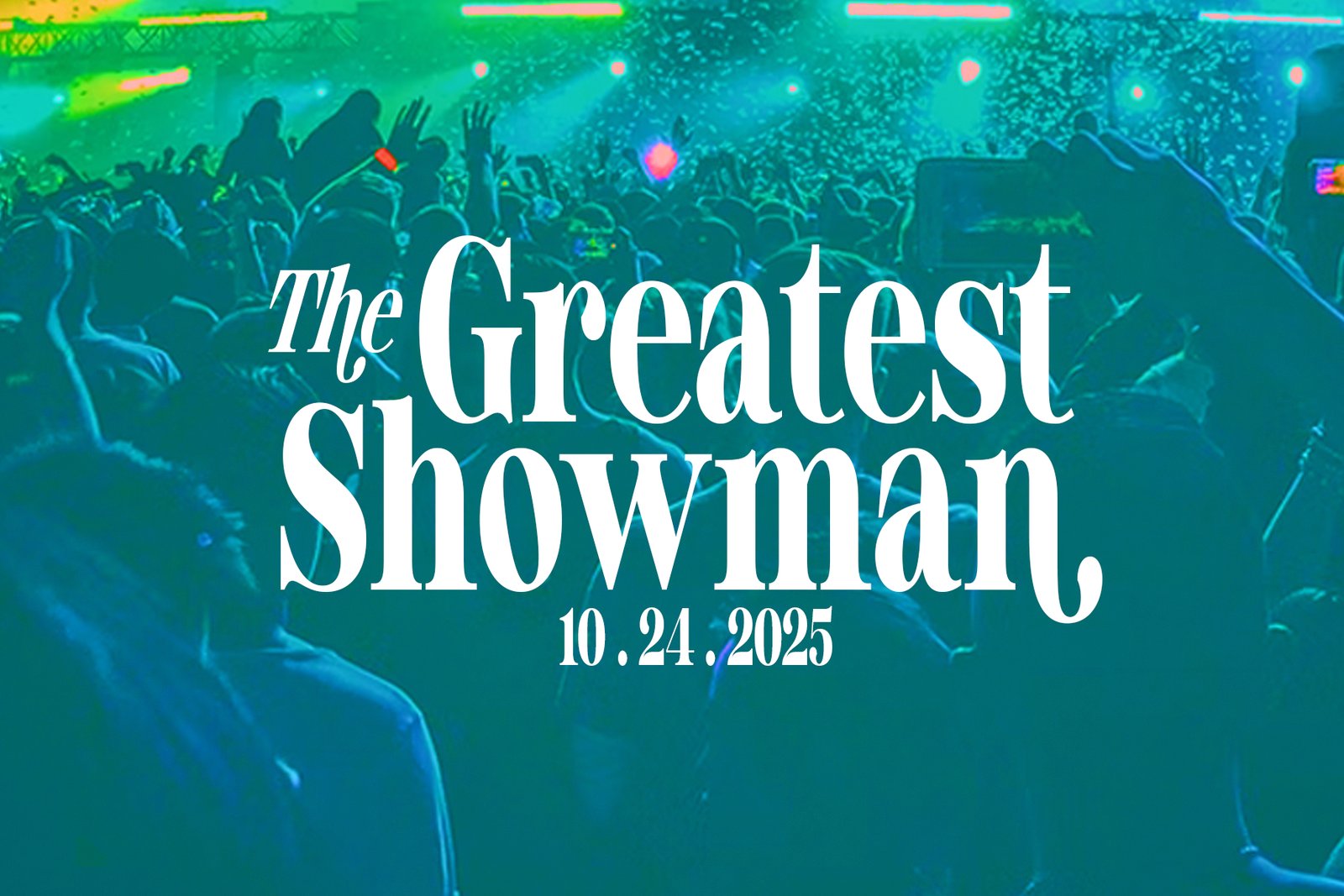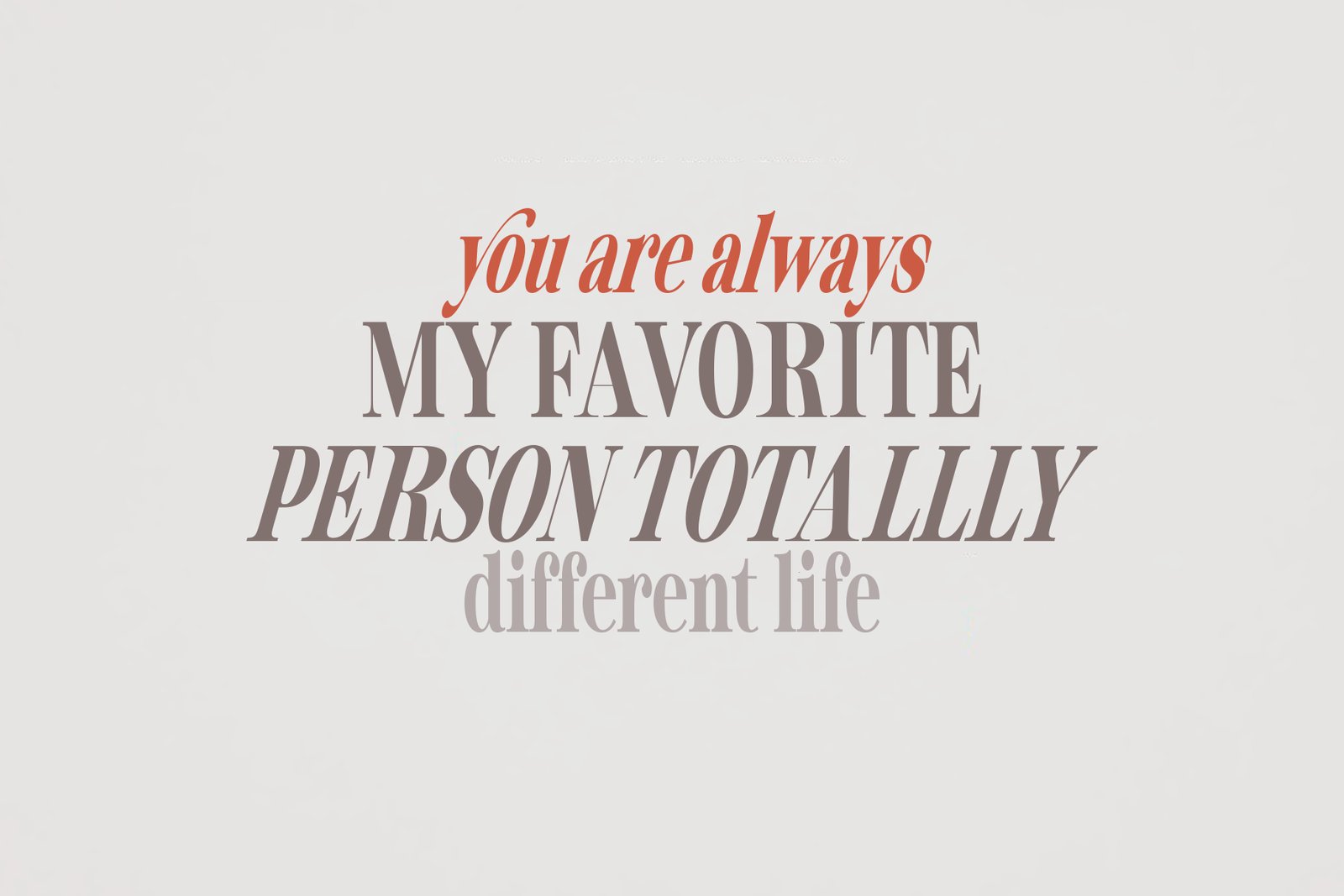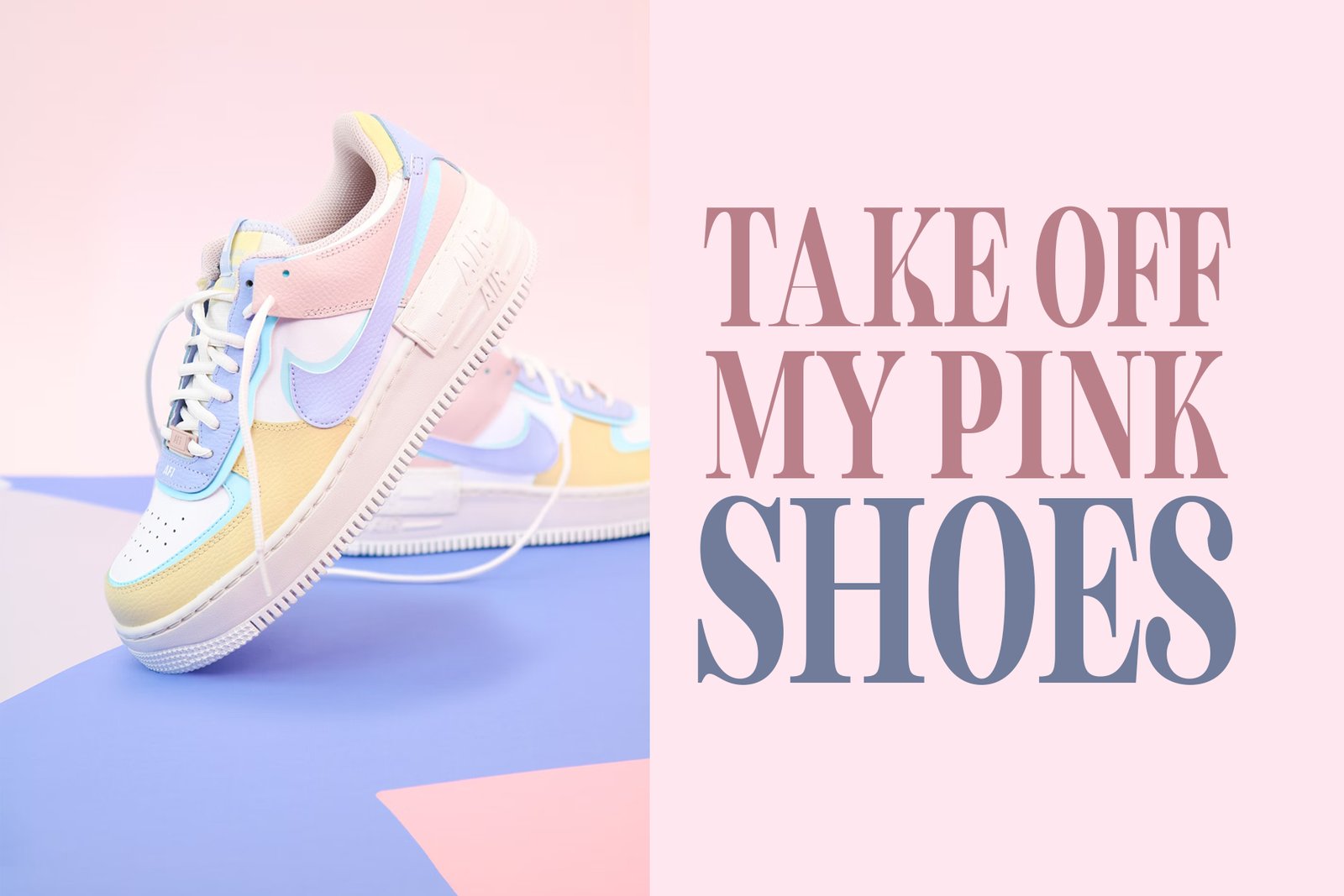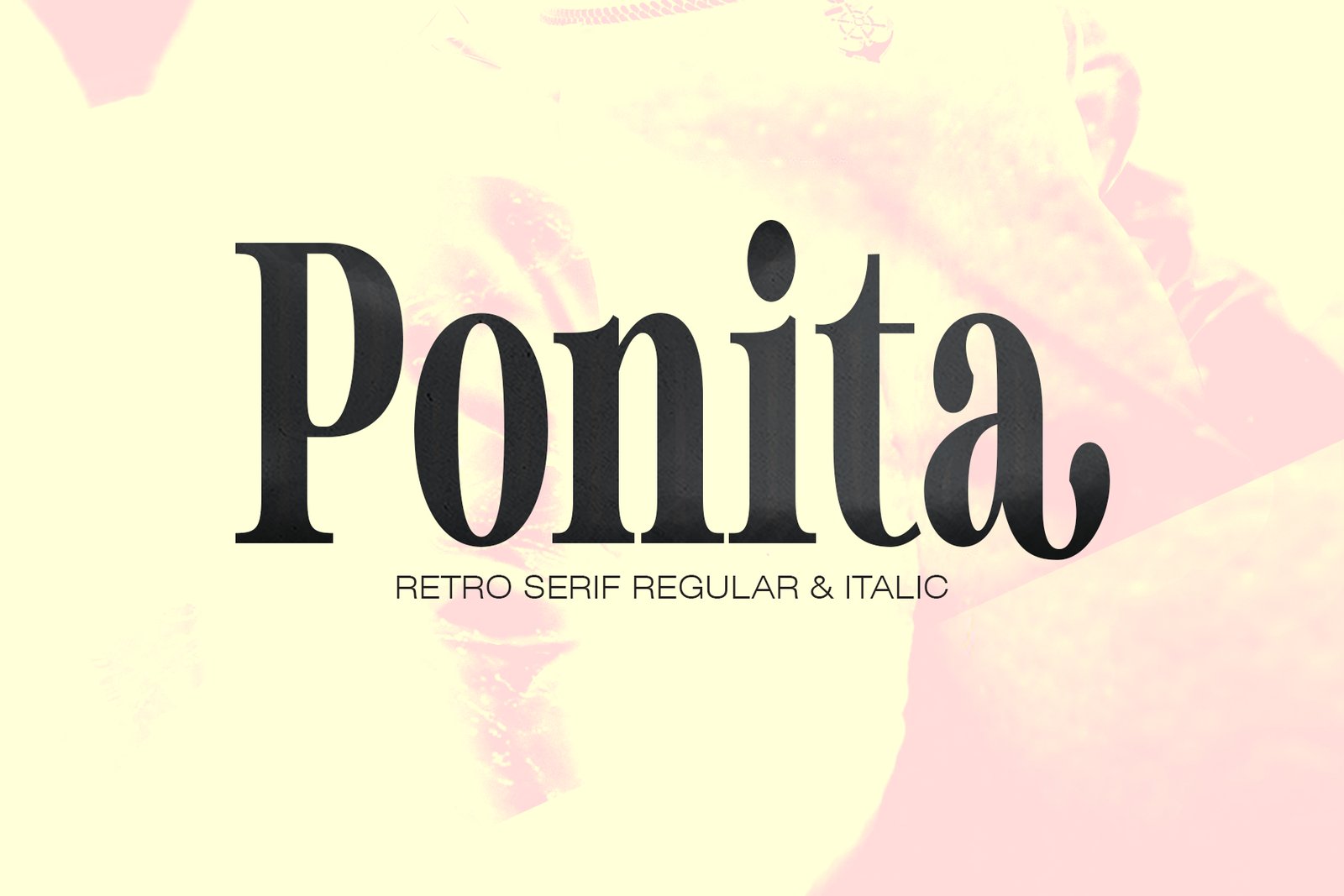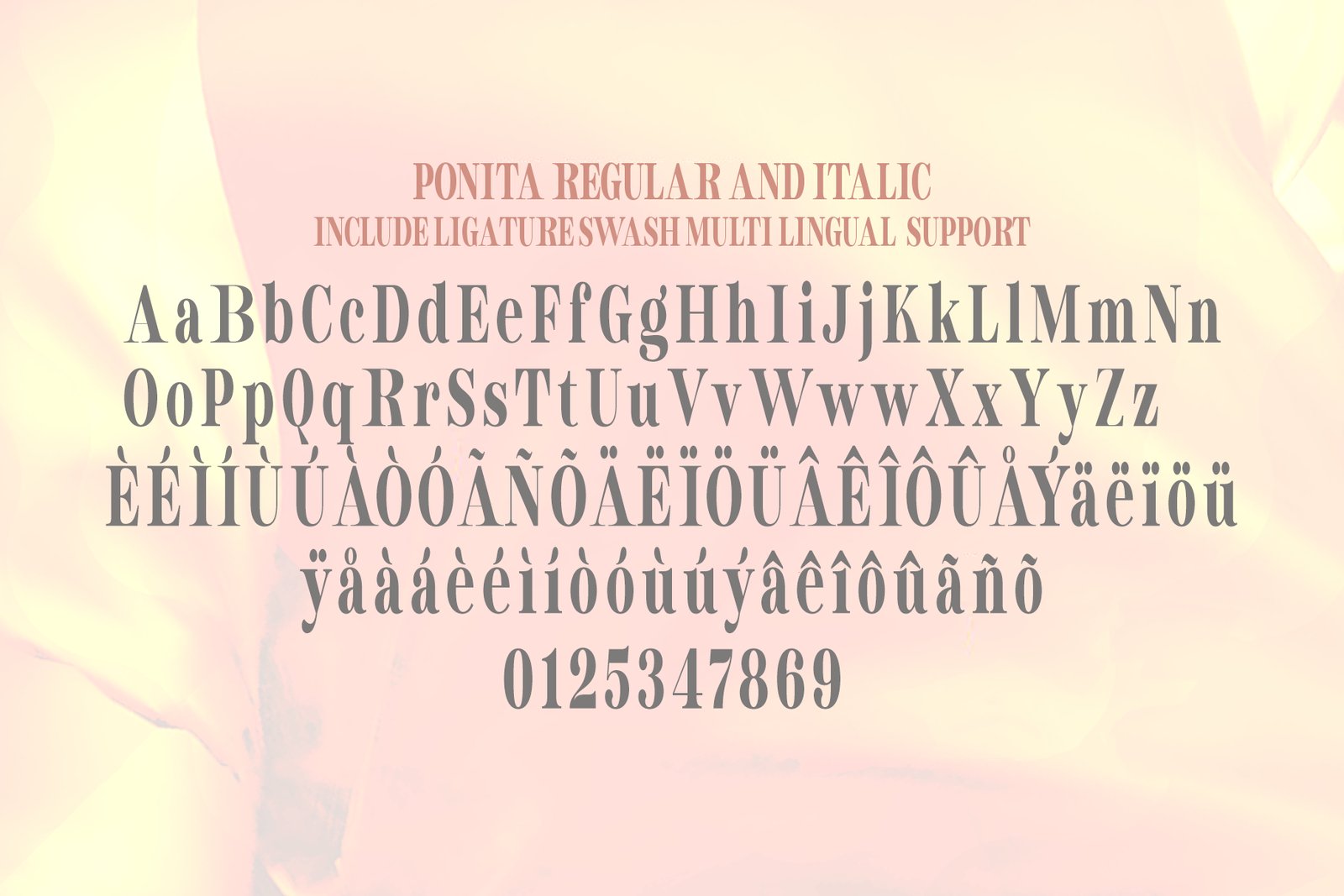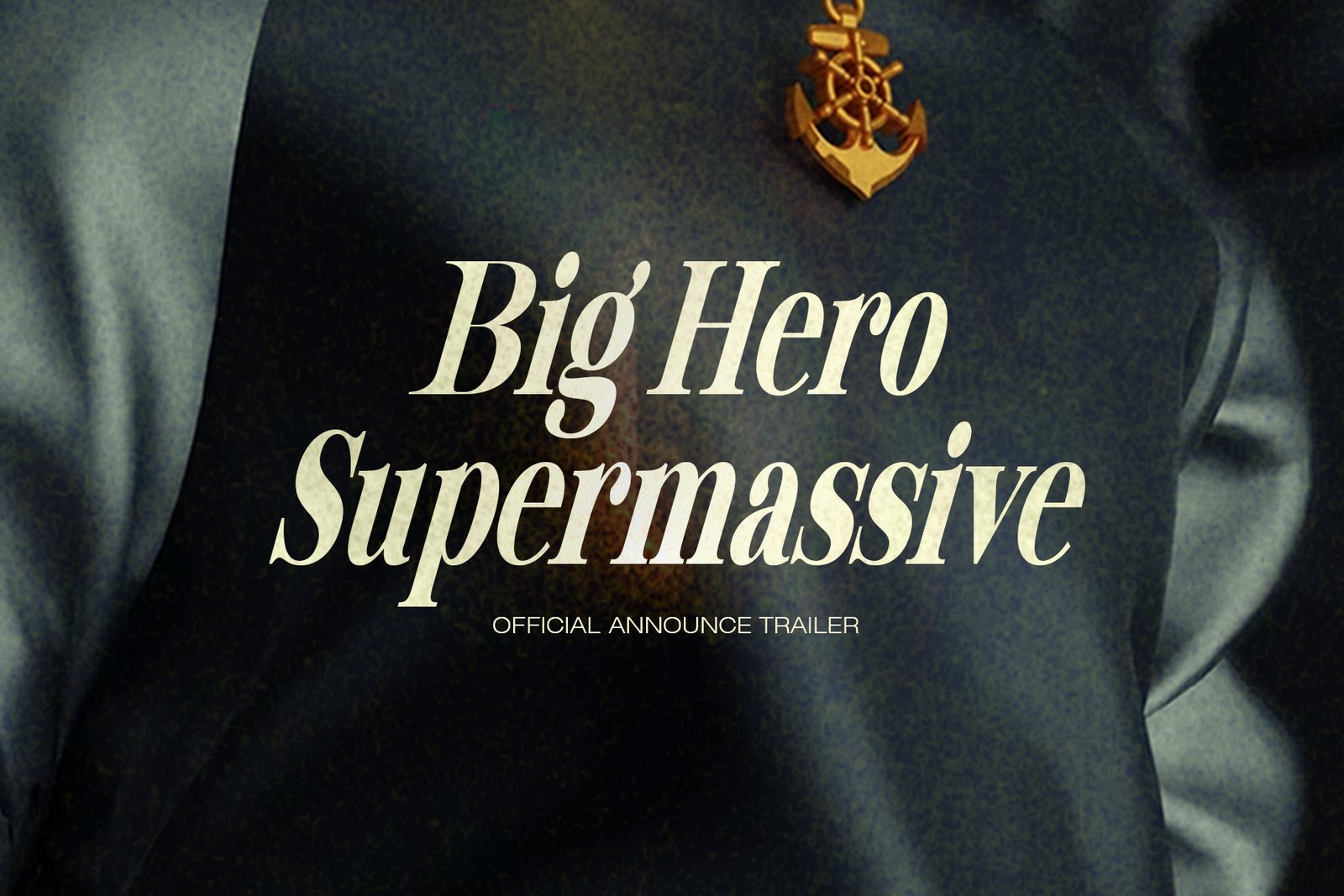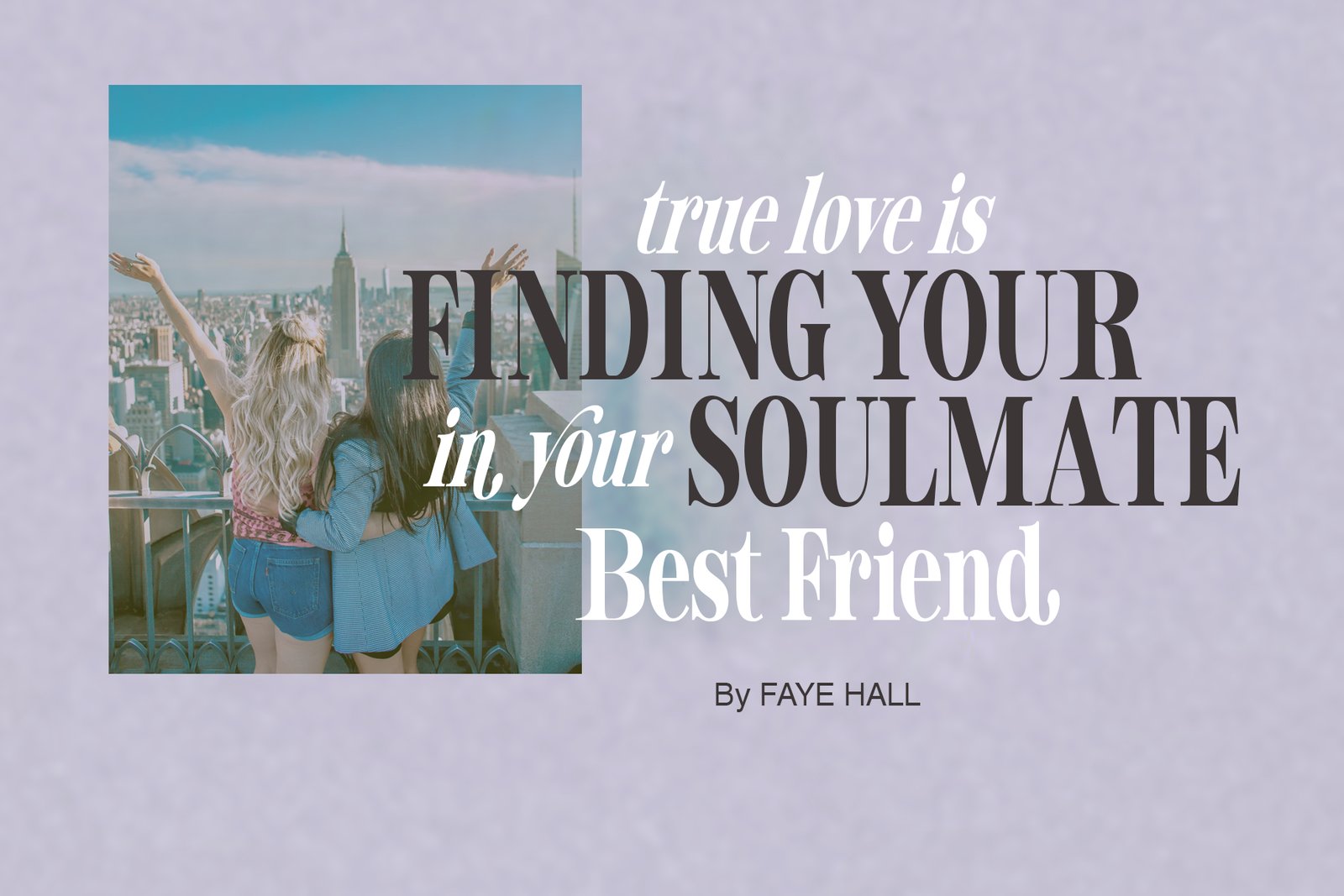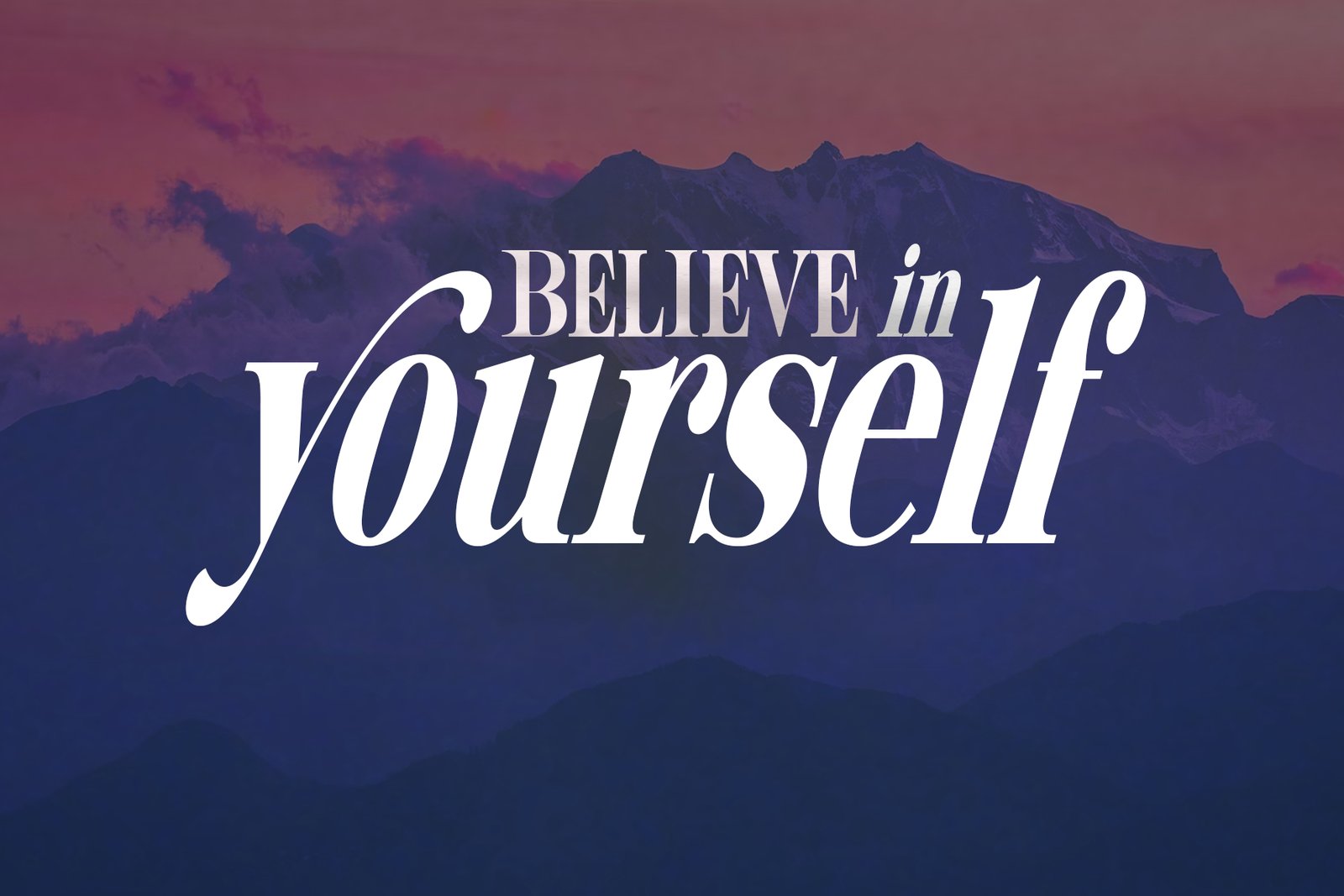
Ponita Font
The Pontita Serif font family with a modern and dynamic style that is packed with features, open type ligatures, and language support.
Think Ponita Serif! This font is bold and elegant.. modern yet vintage... after all, it is sure to draw attention to your brand and design!
Use this font to create logos, branding, advertisements, craft projects, shirts, decorations, wedding invitations, packaging, stickers, social media, quotes, magazines and more!
You can apply it to designs like social media posts, logos, merchandise, book covers, posters, video content thumbnails, quotes, landing pages, wedding invitations and much more you can create with this great item for any design :)
Features: Uppercase, Lowercase, Numbers, Punctuation, Multilingual, Open Type Features & PUA Encoding.
Language Supported : Danish, English, French, German, German (Switzerland), Italian, Low German, Luxembourgish, Norwegian Bokmål, Norwegian Nynorsk, Portuguese, Swedish, Swiss German.